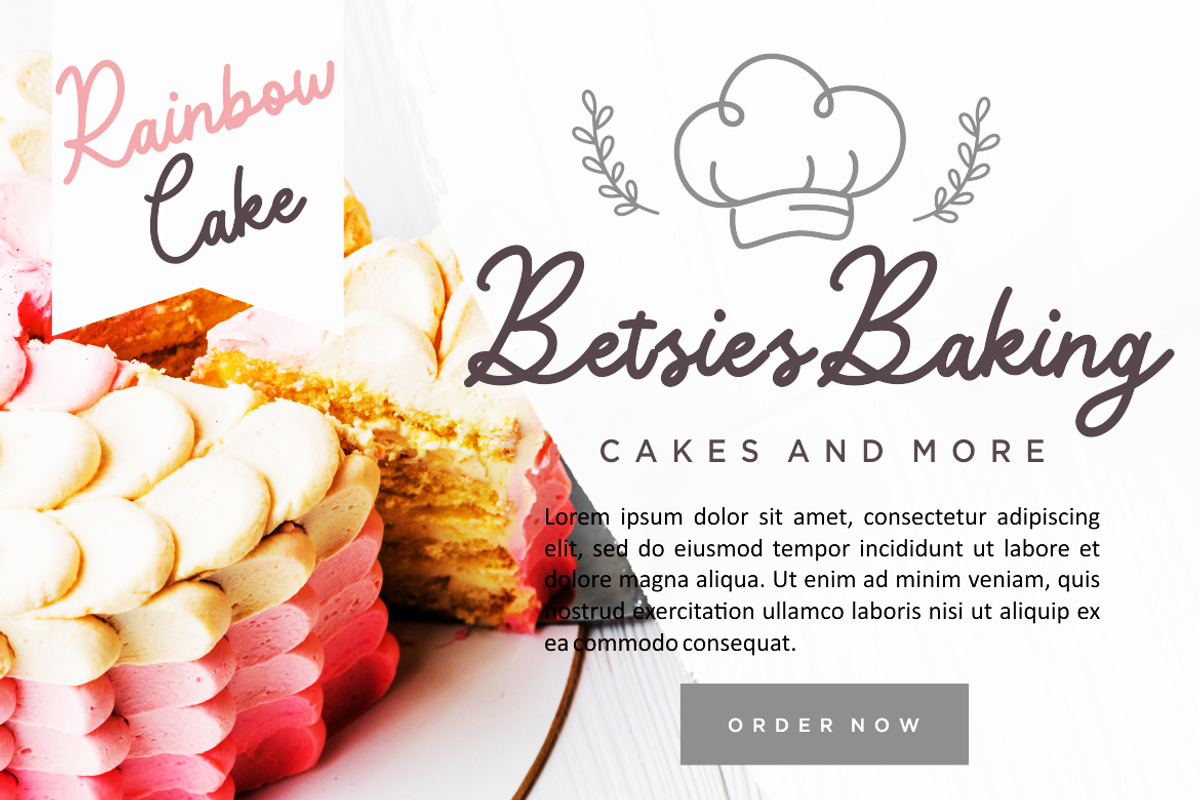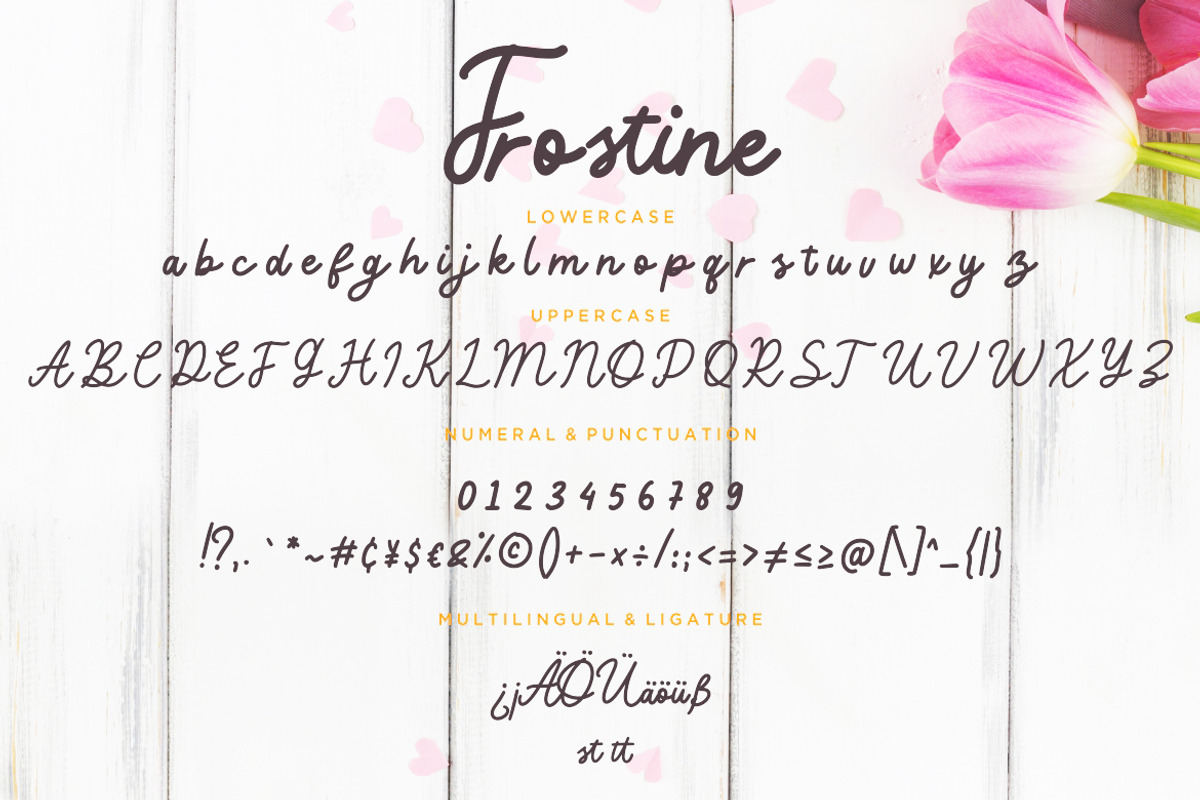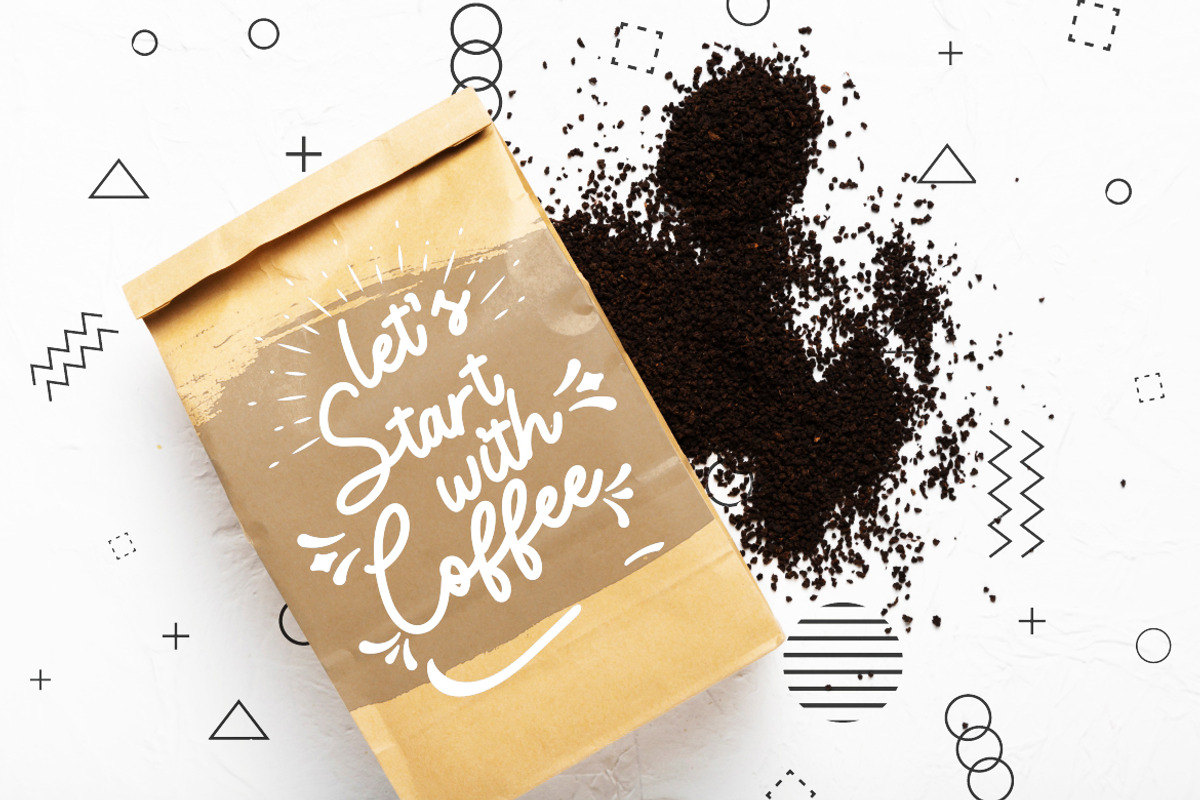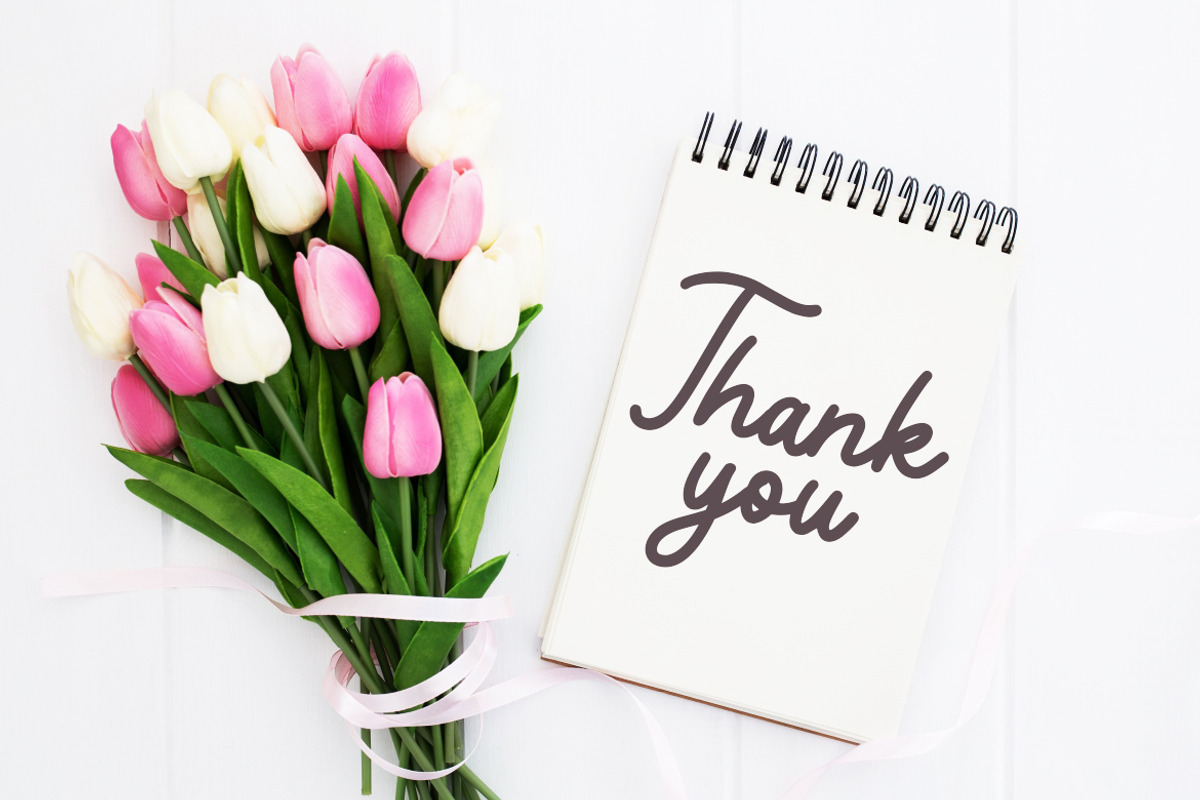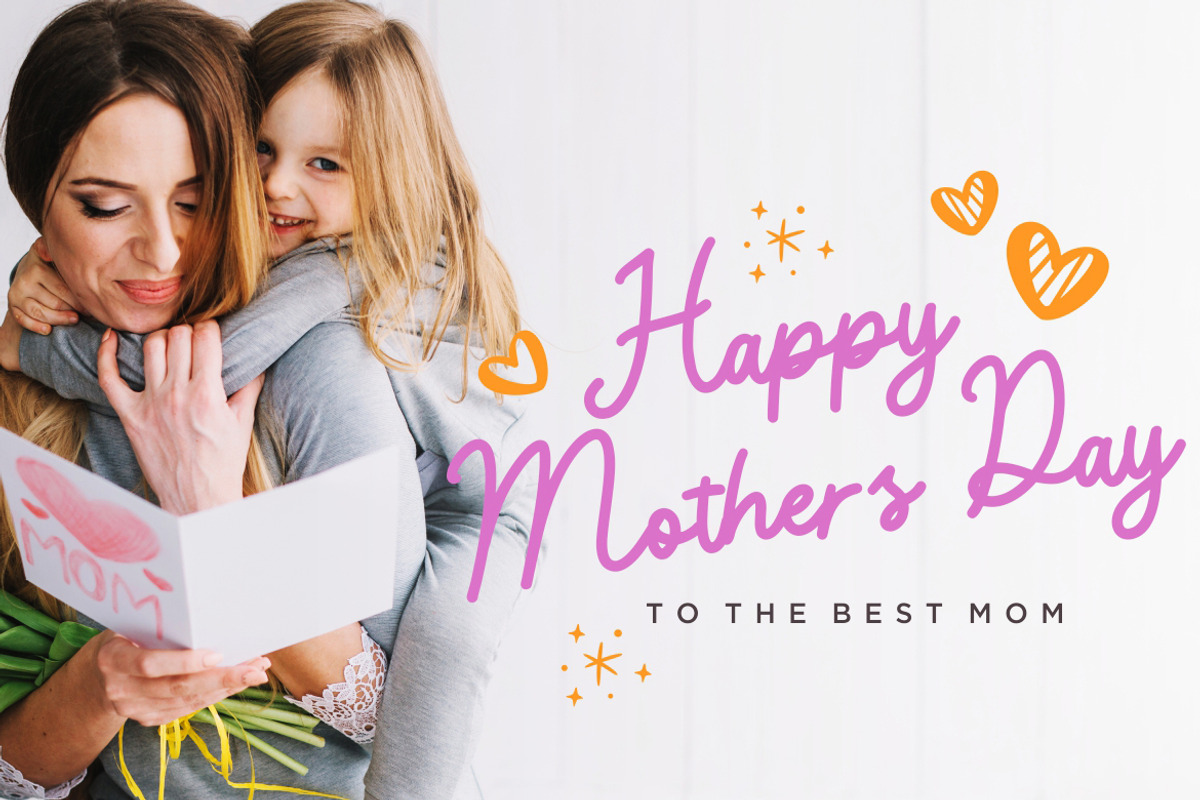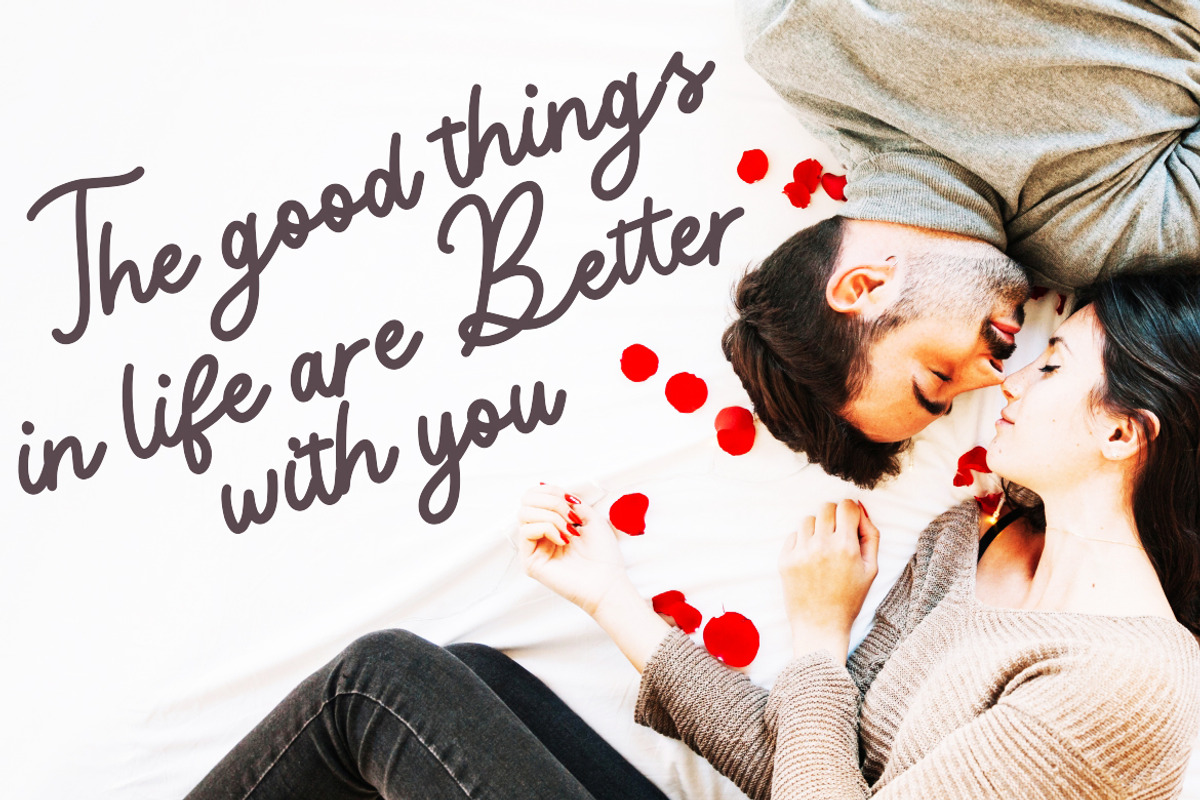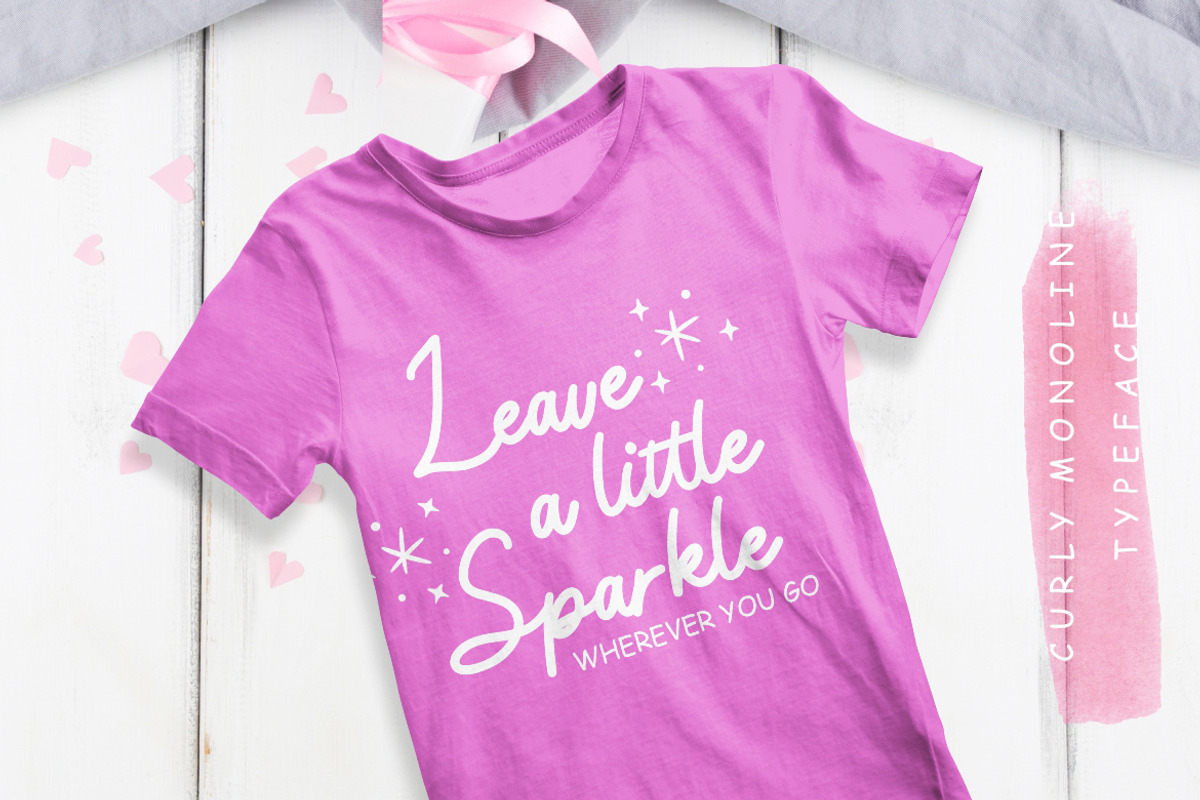
Frostine Curly Advertisement Font
Frostine is curly fun monoline font with natural handwritten looks amazing for your latest project.
Frostine is perfect for branding projects, logo, wedding designs, social media posts, advertisements, product packaging, product designs, label, photography, watermark, invitation, stationery and any projects that need handwriting taste.
Frostine Curly Advertisement Font by Creatype Studio fits naturally into Branding, posters, packaging, typography.